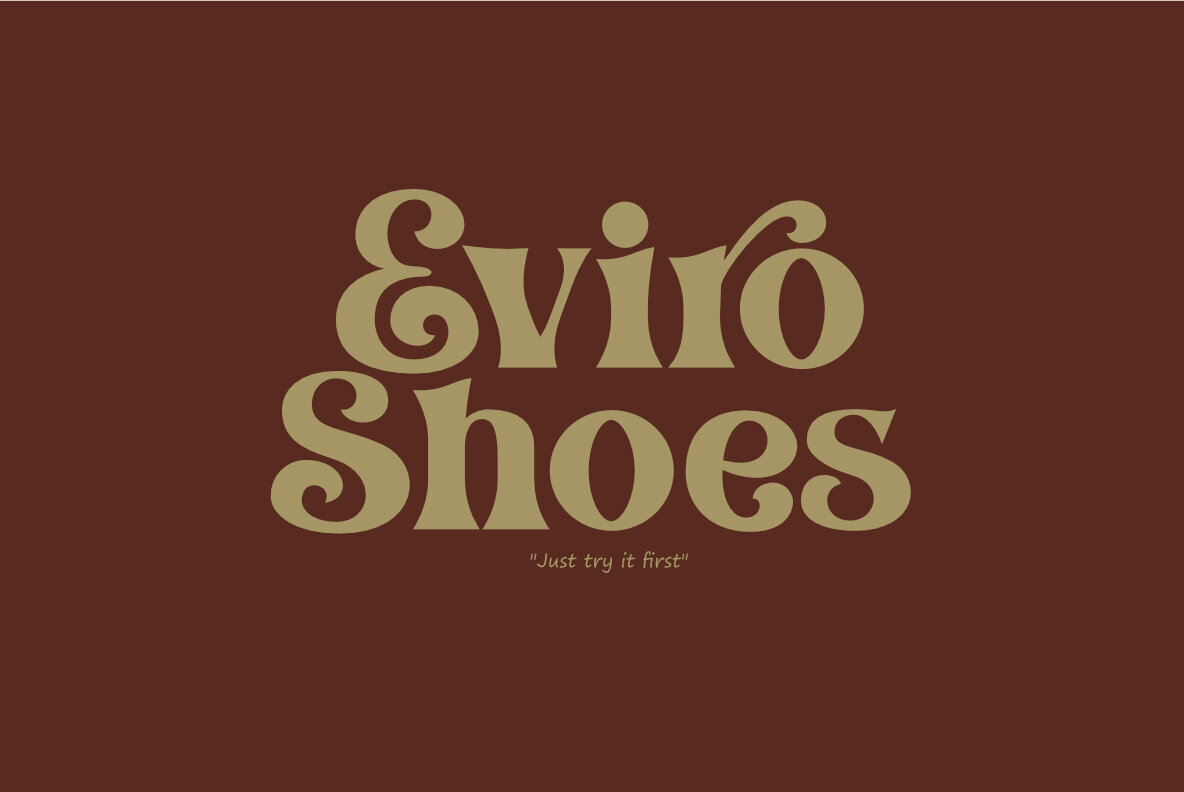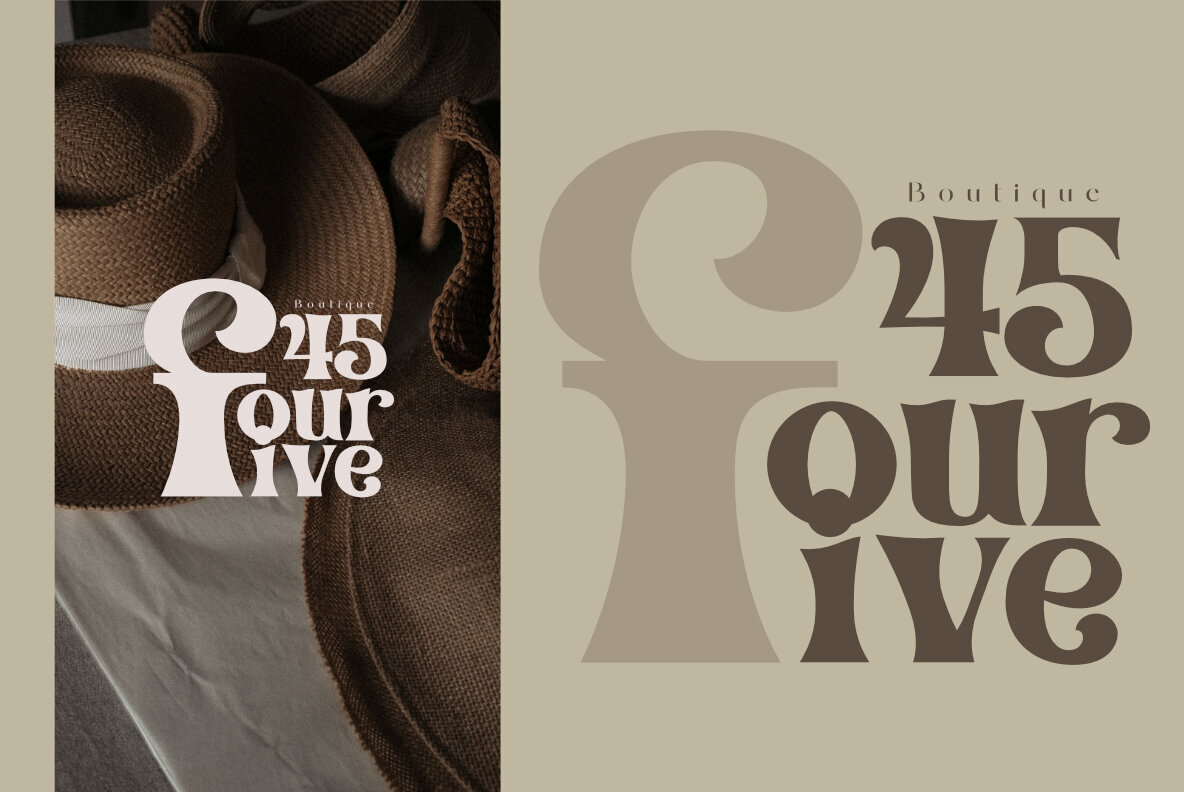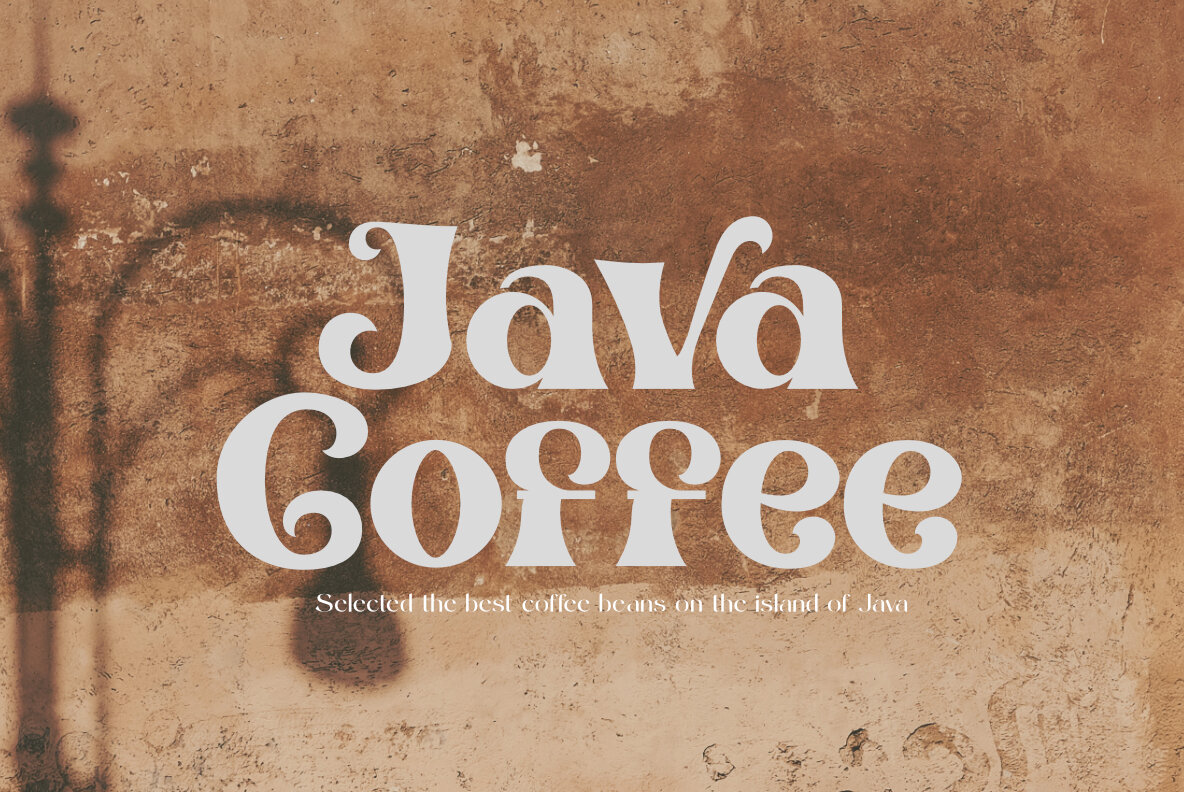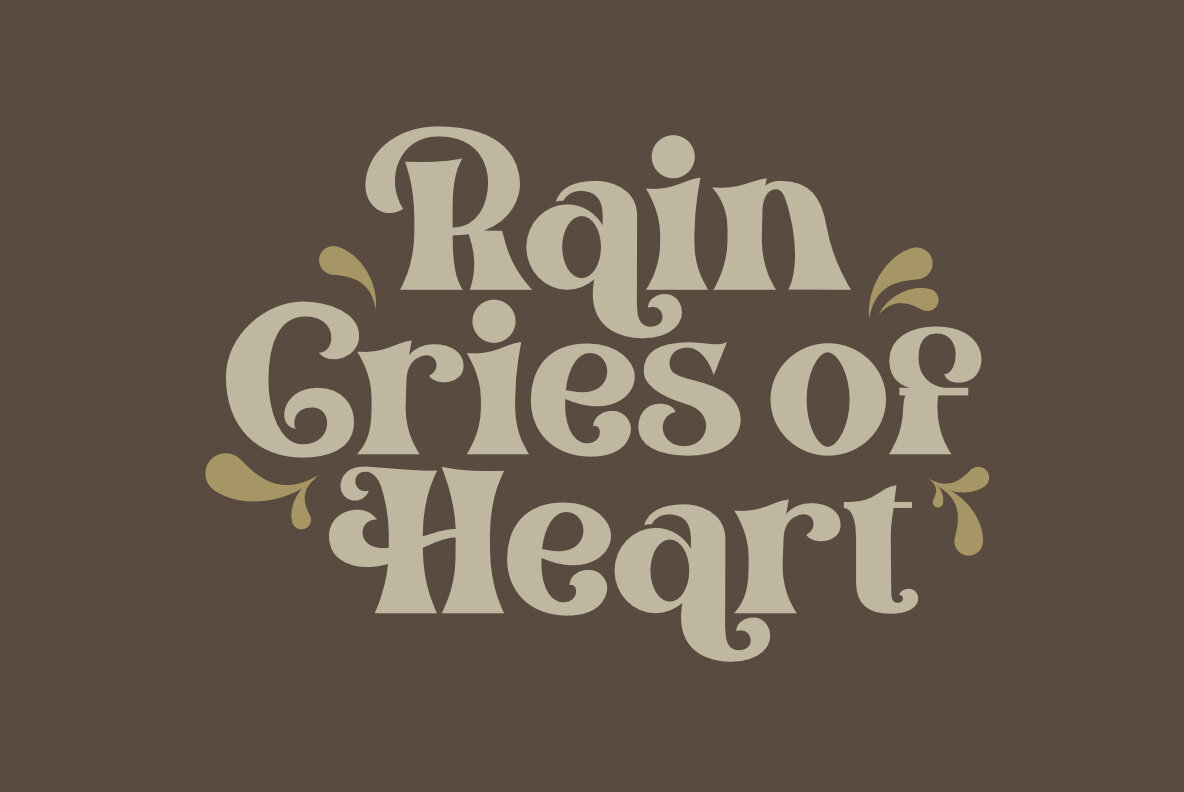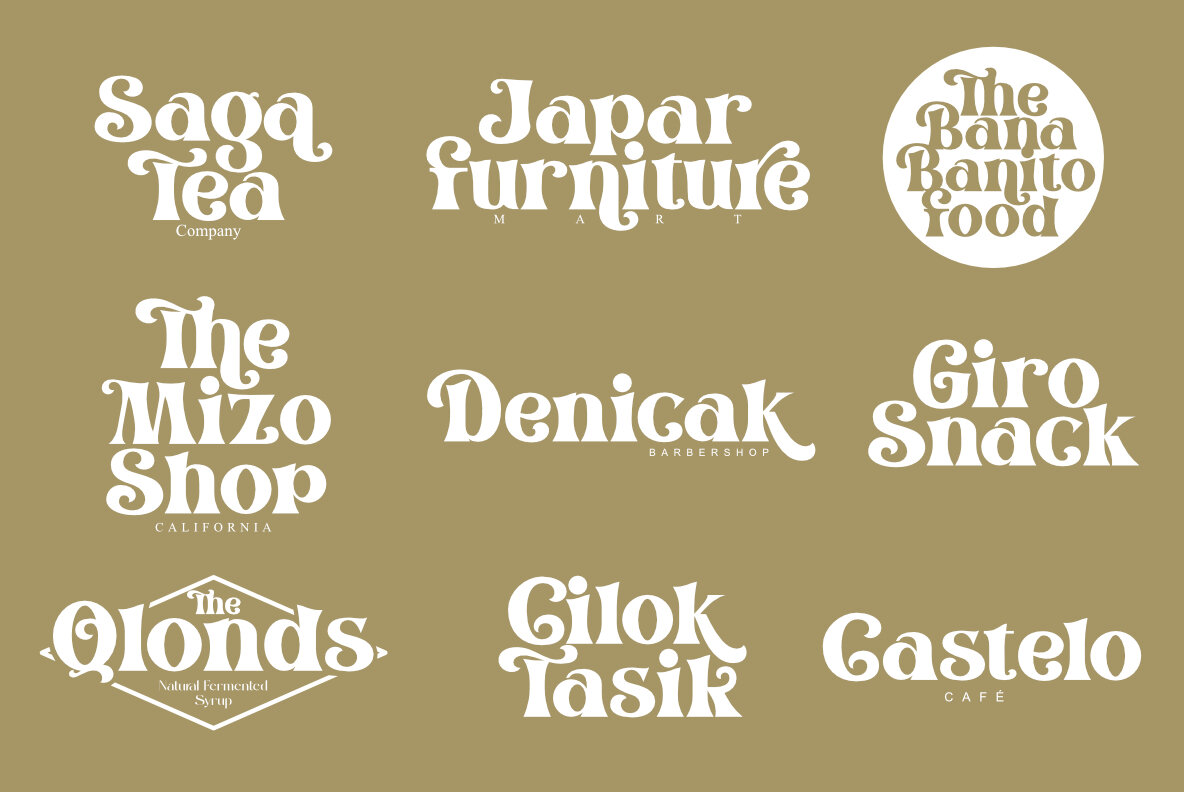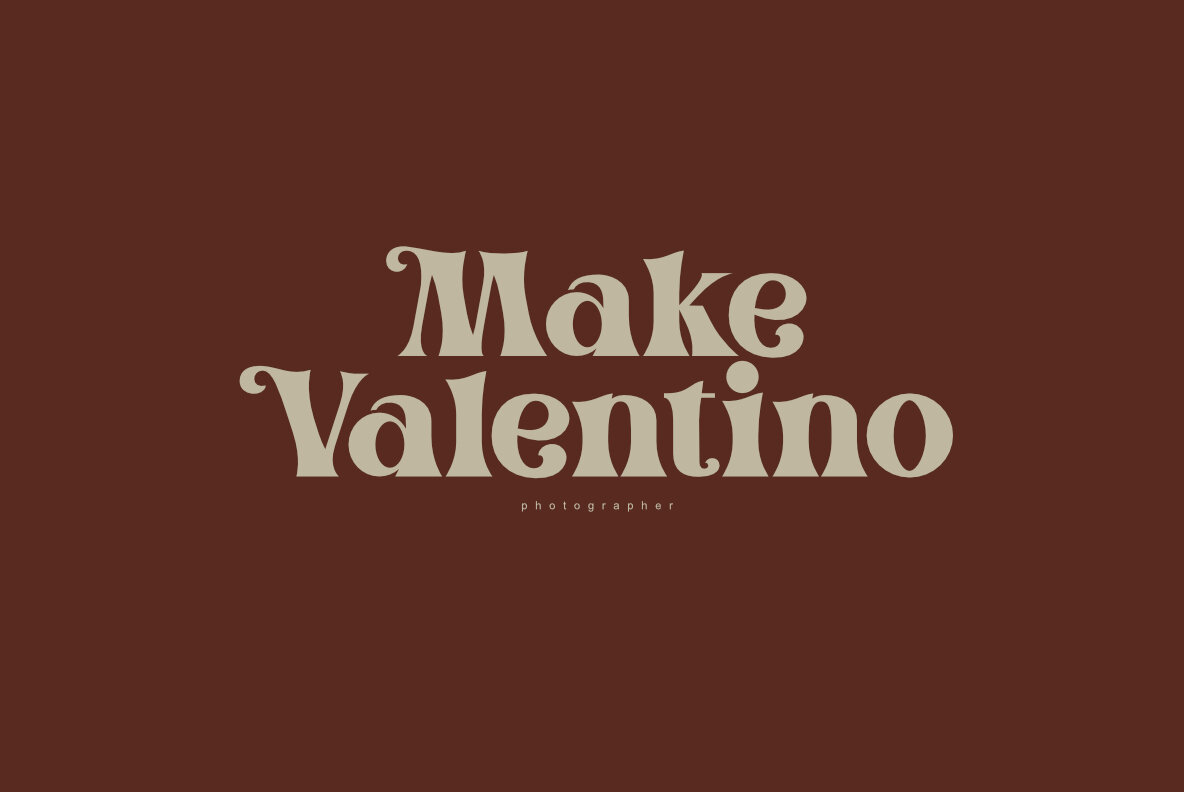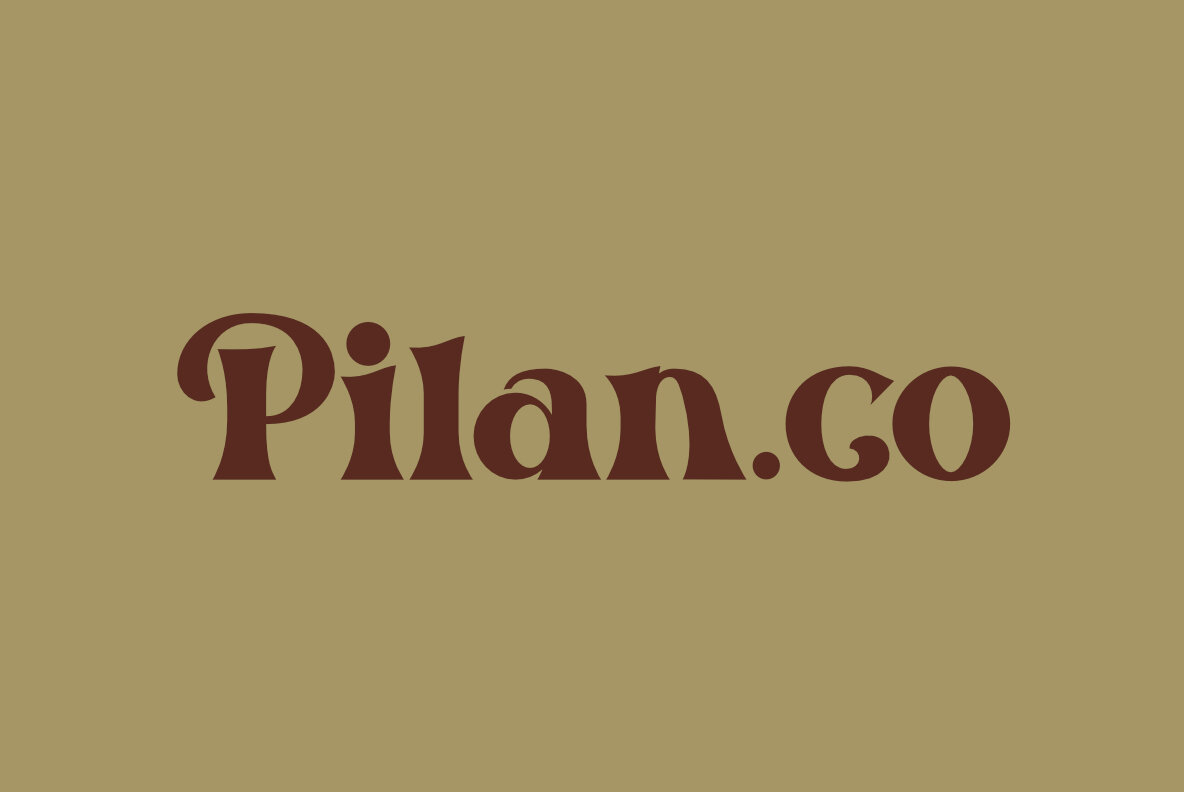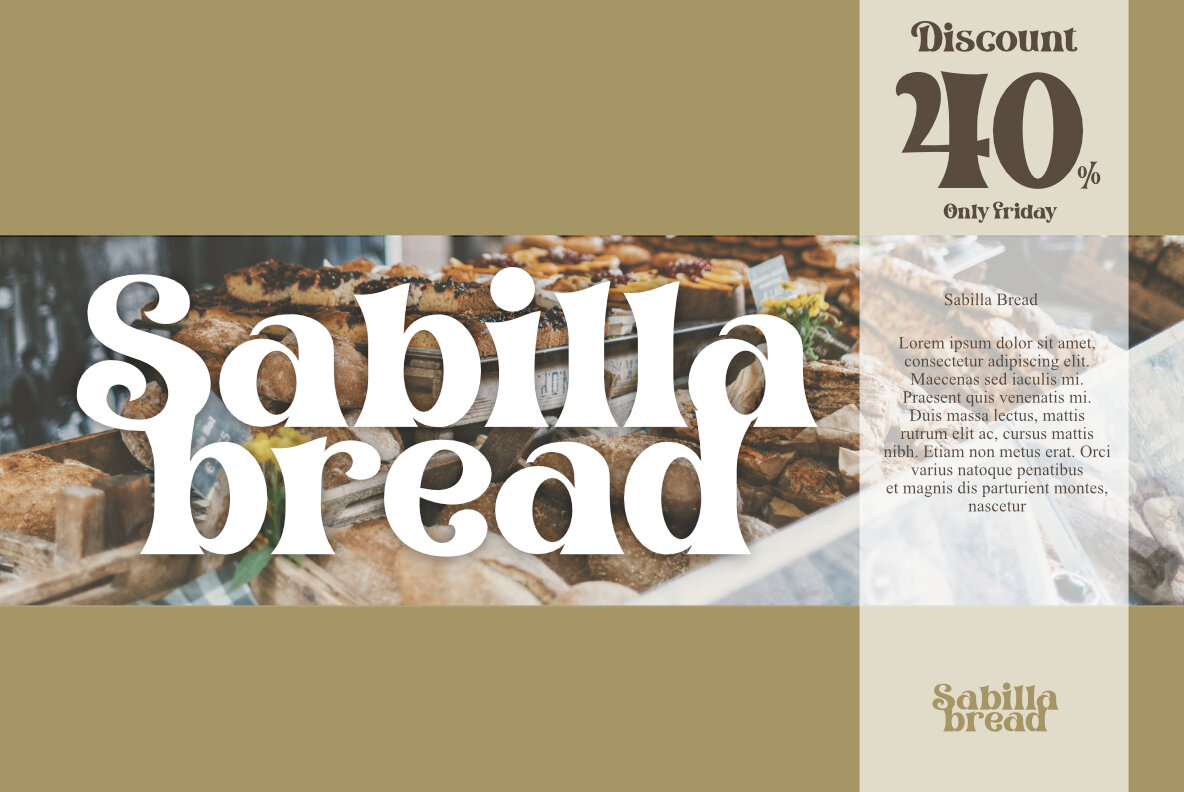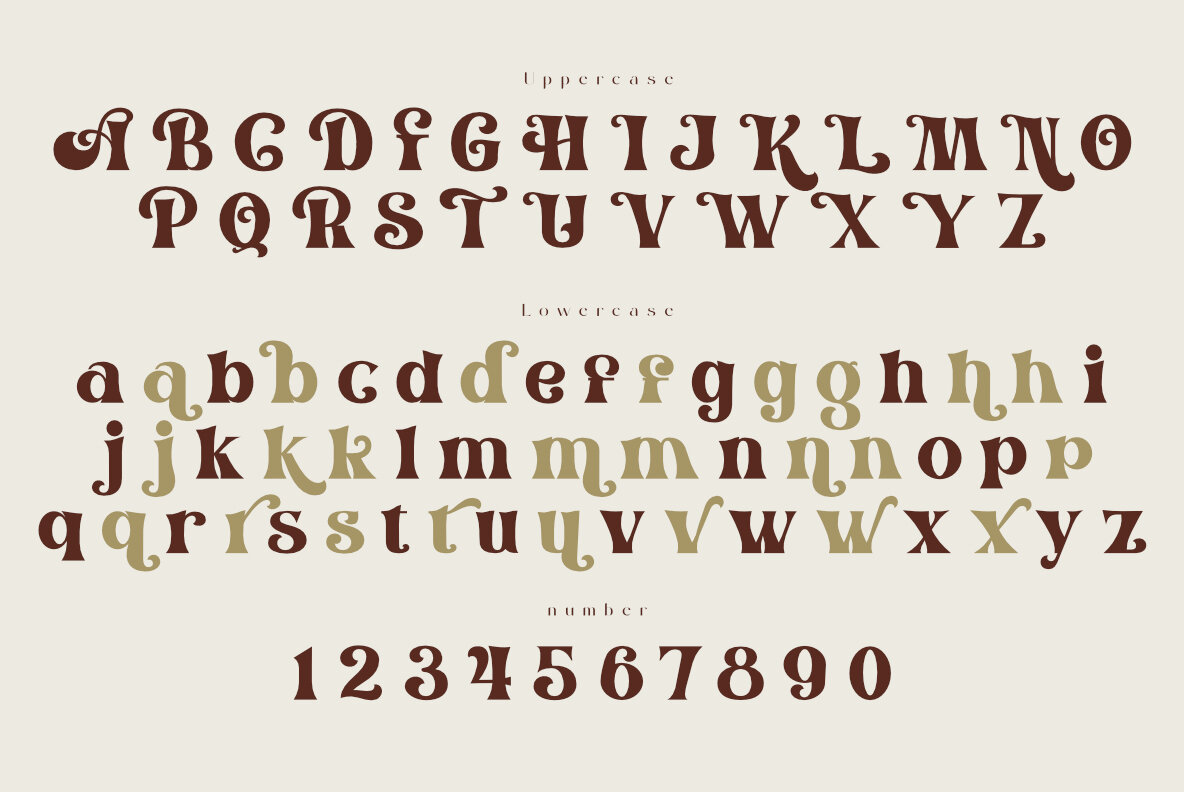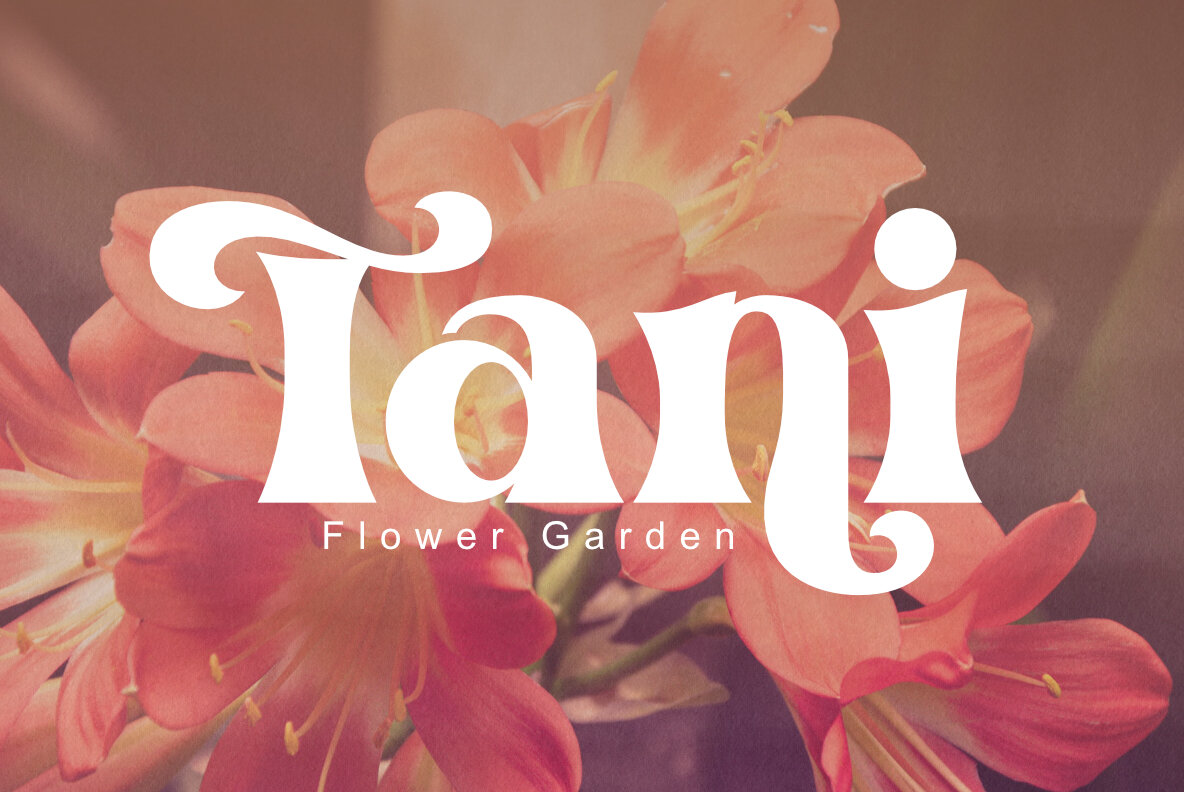
Alpan Font
The Alpan fonts are inspired by 60's style that has a unique shape, here aplan appears more elegant but does not eliminate its unique value, has several alternative fonts that make it look more unique and pleasing to the eye. What's included? - Uppercase Characters - Lowercase Characters - Alternates - Support 75+ Languag